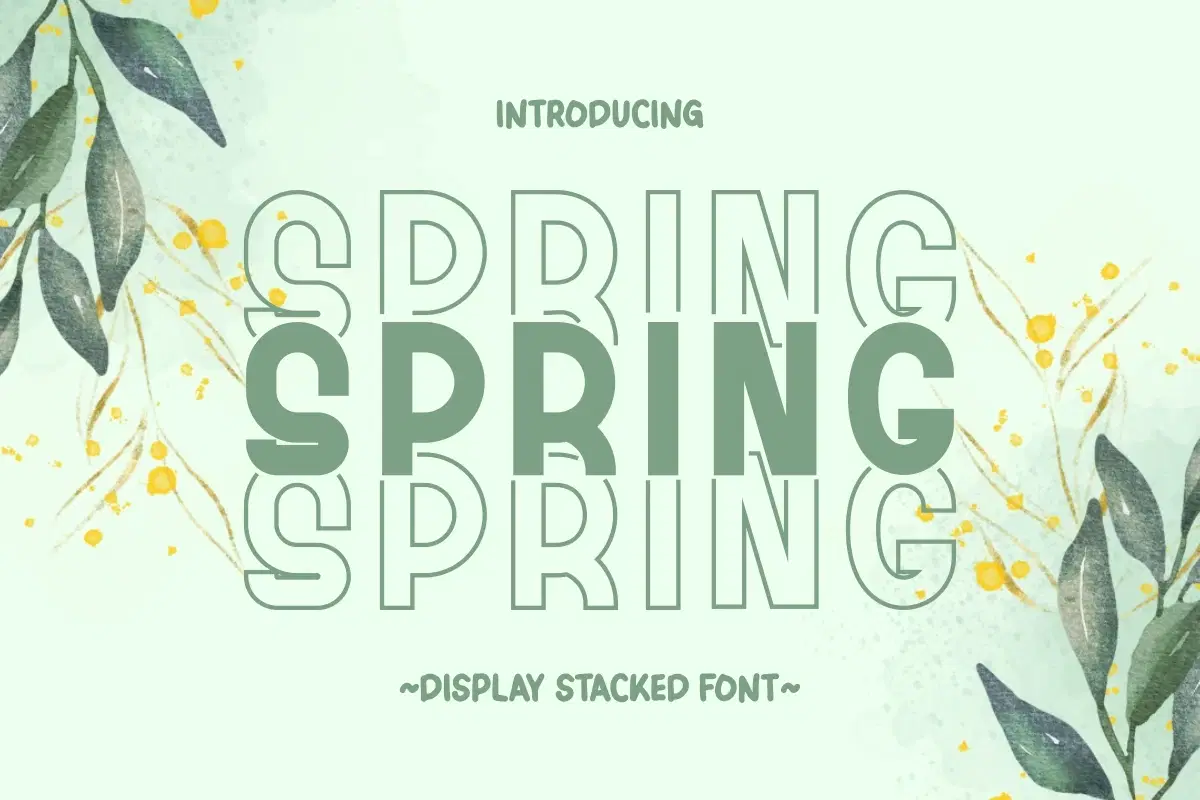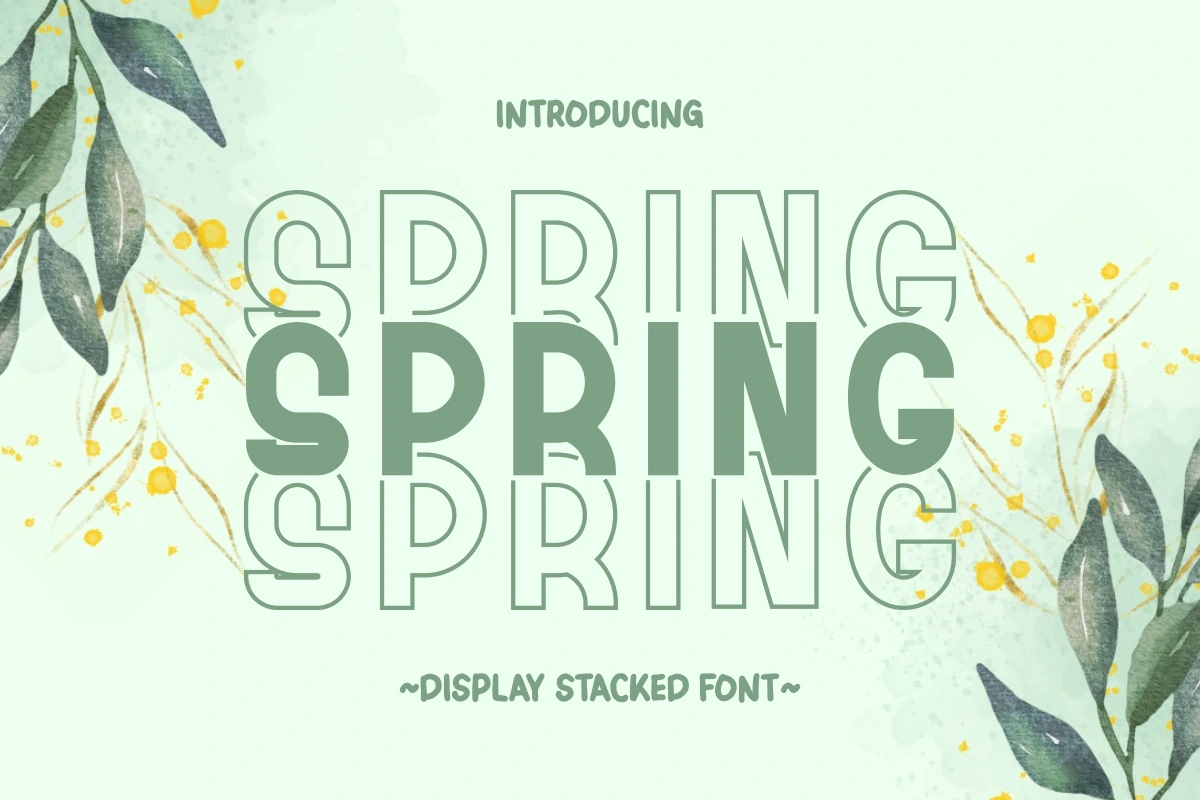
Spring is a fresh and cheerful Display Stacked Font that perfectly captures the vibrant energy of the season. Featuring both Regular and Outline styles, this rounded, all-caps font is ideal for layered designs, seasonal apparel, joyful event posters, and children's branding. Its unique structure and clean curves deliver a playful, creative, and instantly recognizable visual identity, making it perfect for all your fun springtime projects and merchandise.